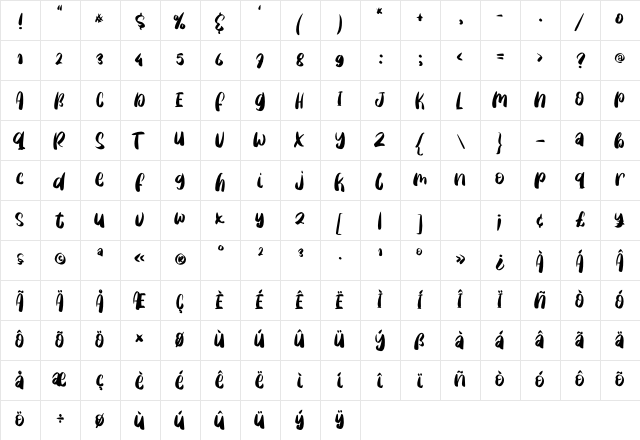
Love Quirky Regular
| Designer | Muh Aswar By Azetype Studio |
Design Context for Love Quirky Typeface
Love Quirky is a composed and adaptable typeface that performs quietly and consistently across a wide range of design contexts.